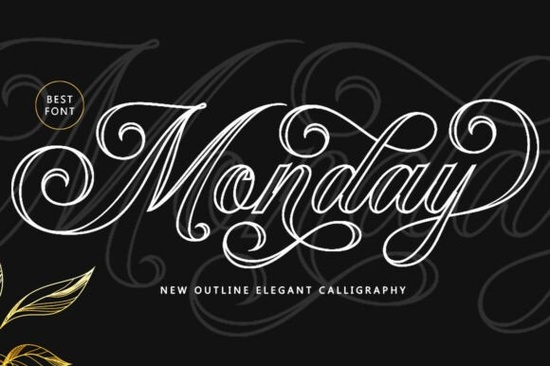
If you're looking for a script font that blends timeless elegance with modern readability, the Monday Outline Font is worth a closer look. Designed with careful attention to letterforms and connections, it offers a refined copperplate-inspired style without feeling dated. Whether you're creating wedding invitations, luxury packaging, or boutique branding, this font delivers a clean, feminine aesthetic that remains easy to read even at smaller sizes.
What sets Monday Outline apart is how it balances classic calligraphy with contemporary design needs. The open, outlined structure gives your text lightness and airiness, making it ideal for layered designs or when you want typography to feel decorative but not overwhelming. Unlike dense script fonts that can become illegible in print or digital formats, Monday Outline maintains clarity thanks to its well-proportioned spacing and consistent stroke weight.
What kinds of projects work best with Monday Outline?
This font shines in contexts where sophistication matters. Think:
- Wedding stationery – from save-the-dates to place cards
- Beauty and fashion branding – logos, product labels, or social media graphics
- Editorial design – chapter headings in novels, magazine pull quotes, or book covers
- Restaurant menus – especially for upscale or brunch-style venues
- Custom gift tags and packaging – adding a personal, handcrafted feel
Because it’s an outline font, it pairs beautifully with solid fills, watercolor textures, or minimalist backgrounds. You can even layer it over photos without losing legibility just avoid overly busy patterns behind the text.
How does it compare to other elegant script fonts?
While many script fonts lean heavily into flourishes or ultra-thin strokes, Monday Outline keeps things balanced. If you’ve used fonts like Preppy Barbie, you’ll notice a similar playful femininity but Monday Outline feels more restrained and formal. For those who prefer bolder scripts, Lockride offers stronger contrast and dramatic swashes, whereas Monday Outline opts for subtlety.
On the softer side, BeautifulGarden brings organic, hand-lettered warmth, while BohoBaby leans into free-spirited, casual charm. Monday Outline sits comfortably between these extremes: polished enough for professional use, yet full of personality.
Tips for using Monday Outline effectively
To get the most out of this font, keep a few practical considerations in mind:
- Avoid tight tracking. The outlined letters need breathing room increasing letter spacing slightly often improves readability.
- Use sparingly for body text. It’s best suited for headlines, titles, or short phrases. Long paragraphs may tire the eye.
- Pair with simple sans-serifs. Fonts like Montserrat, Lato, or even a neutral serif like Playfair Display create a clean contrast without competing.
- Test print output. Outline fonts can sometimes appear faint on certain printers do a physical proof before committing to large batches.
Also, remember that many script fonts including Monday Outline include contextual alternates or stylistic sets. If your design software supports OpenType features (like Adobe Illustrator or Affinity Designer), explore these options to access unique letter variations that add authenticity to your layout.
Who should consider this font?
Print-on-demand sellers creating custom mugs, tote bags, or greeting cards will appreciate how Monday Outline photographs well and scales cleanly. Small business owners in the beauty, bakery, or boutique retail space can use it to convey premium quality without appearing stiff. Hobbyists crafting handmade journals or scrapbook layouts will find it adds just the right touch of refinement without requiring advanced typography skills.